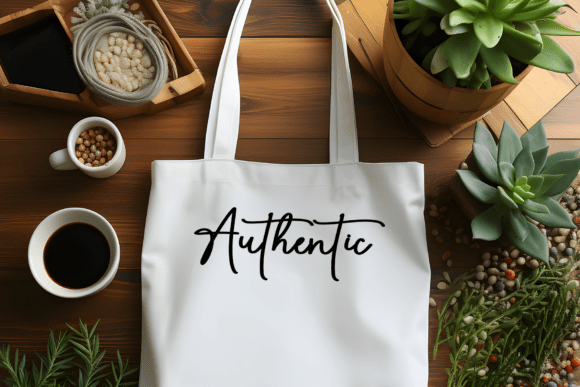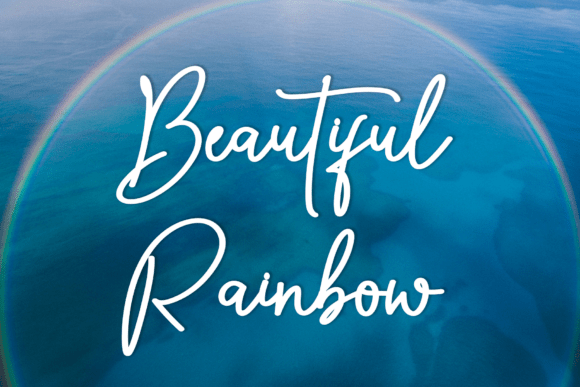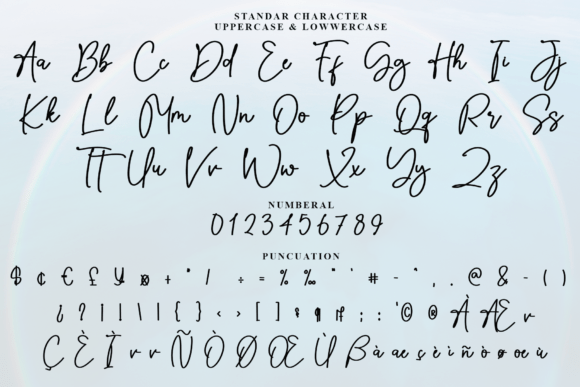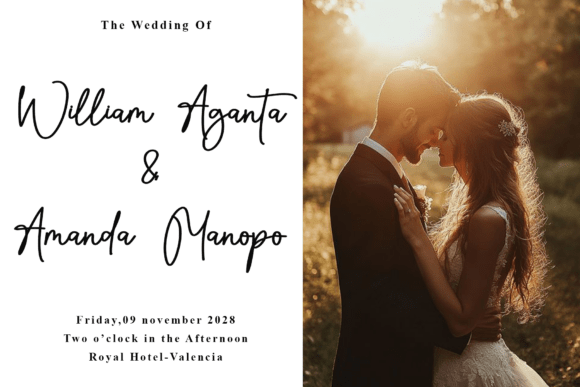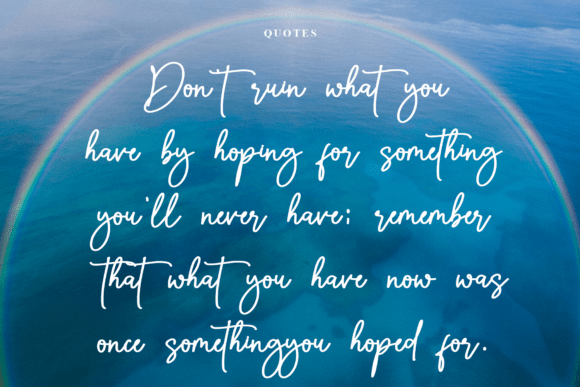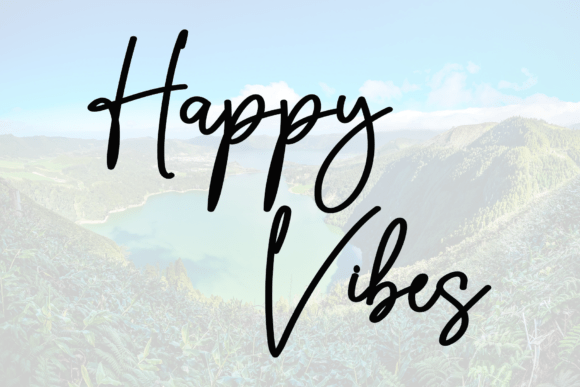
Introducing Adventure Font: The Perfect Companion for Joyful Designs
Are you on the lookout for a font that embodies the spirit of fun and celebration? Look no further than Adventure Font, a playful, brush-handwritten typeface that is sure to bring a smile to your designs. With its lively strokes and casual style, Adventure Font is the perfect choice for birthday cards, party invitations, or any other joyful occasion.
The Personality of Adventure Font
Adventure Font is more than just a collection of letters – it’s a personality that shines through in every curve and line. This font feels personal and warm, like a handwritten note from a friend. Its creative and carefree vibe makes it perfect for designers and crafters who want to add a touch of whimsy to their work.
What Makes Adventure Font Special?
- Playful and Fun: Adventure Font is designed to bring a sense of joy and playfulness to your designs. Its lively strokes and casual style make it perfect for creating festive and celebratory content.
- Brush-Handwritten: The font’s brush-handwritten style gives it a unique, organic feel that’s perfect for adding a personal touch to your designs.
- Versatile: Whether you’re designing a birthday card, party invitation, or social media graphic, Adventure Font is versatile enough to fit any joyful occasion.
- Easy to Read: Despite its playful nature, Adventure Font is easy to read, making it perfect for both digital and print designs.
Uses for Adventure Font
So, what can you do with Adventure Font? The possibilities are endless! Here are a few ideas to get you started:
- Birthday Cards: Create personalized birthday cards that are sure to bring a smile to the recipient’s face.
- Party Invitations: Design festive party invitations that set the tone for a fun and celebratory event.
- Social Media Graphics: Add a touch of whimsy to your social media graphics, such as Facebook posts, Instagram stories, and Twitter headers.
- Blog Posts: Use Adventure Font to add a playful touch to your blog posts, making them more engaging and fun to read.
Tips for Using Adventure Font
To get the most out of Adventure Font, here are a few tips to keep in mind:
- Keep it Simple: Don’t be afraid to keep your design simple and let the font be the star of the show.
- Experiment with Colors: Adventure Font looks great in a variety of colors, so don’t be afraid to experiment and find the perfect hue for your design.
- Mix and Match: Try pairing Adventure Font with other fonts to create a unique and eye-catching design.
Adventure Font is a playful, brush-handwritten font that’s perfect for designers and crafters who want to add a touch of fun and celebration to their work. With its lively strokes and casual style, it’s sure to bring a smile to your designs. Whether you’re creating birthday cards, party invitations, or social media graphics, Adventure Font is the perfect companion for joyful designs.